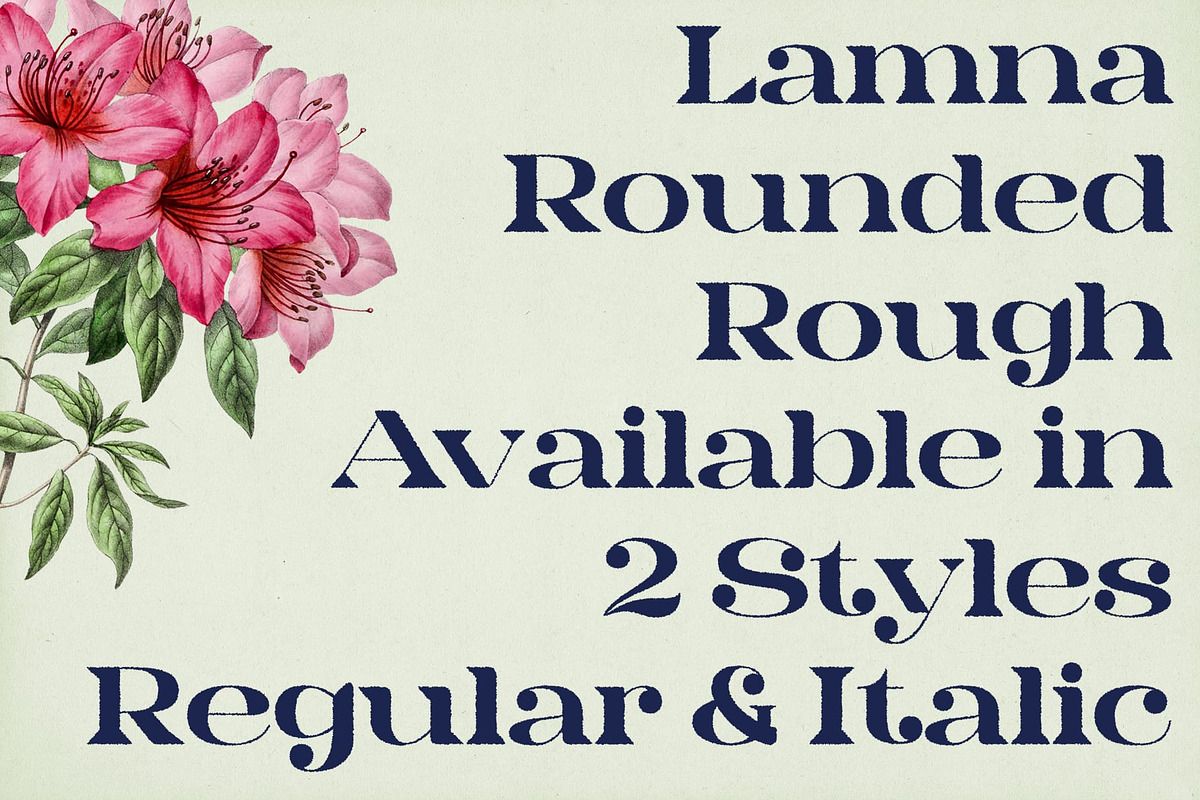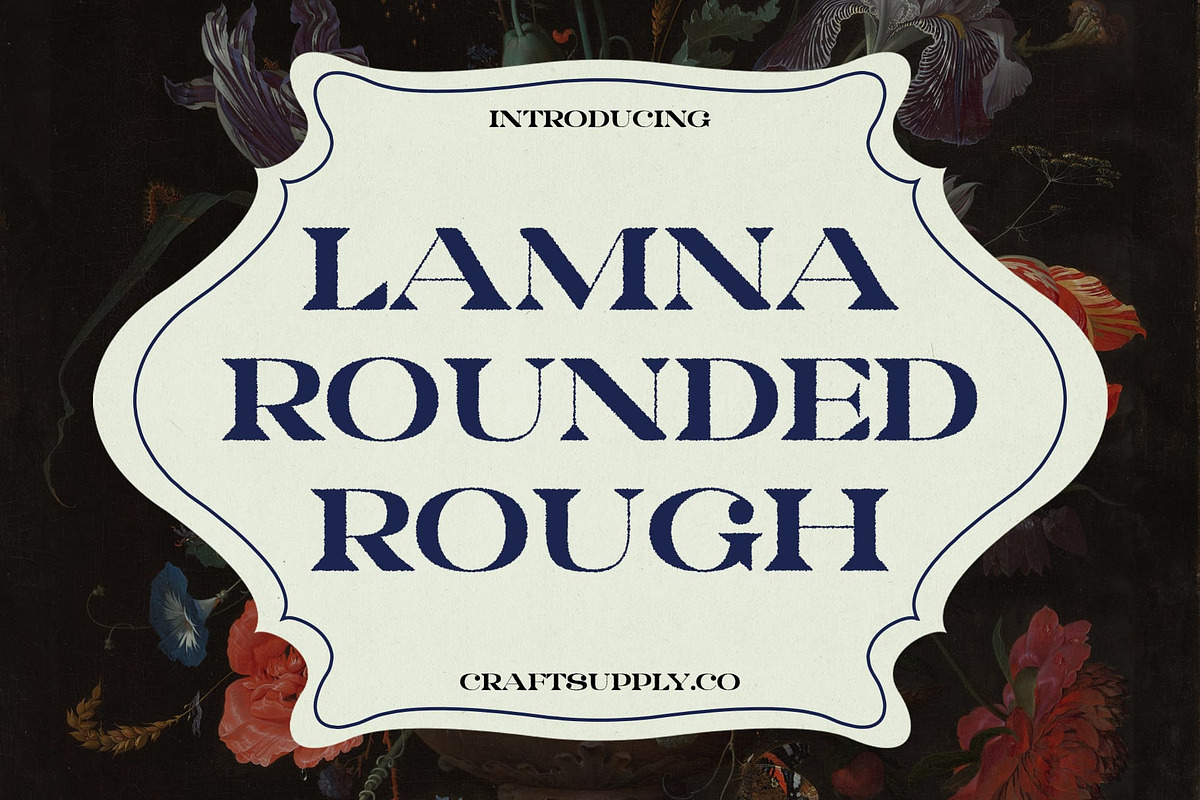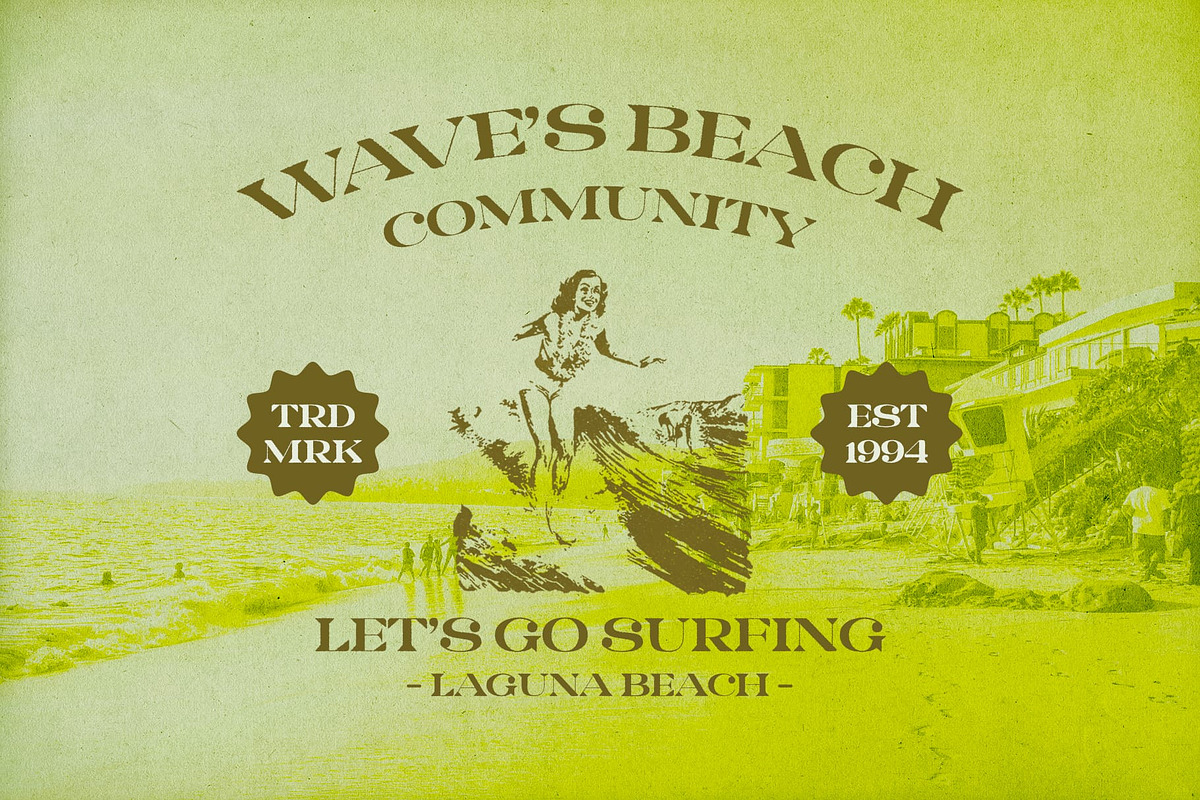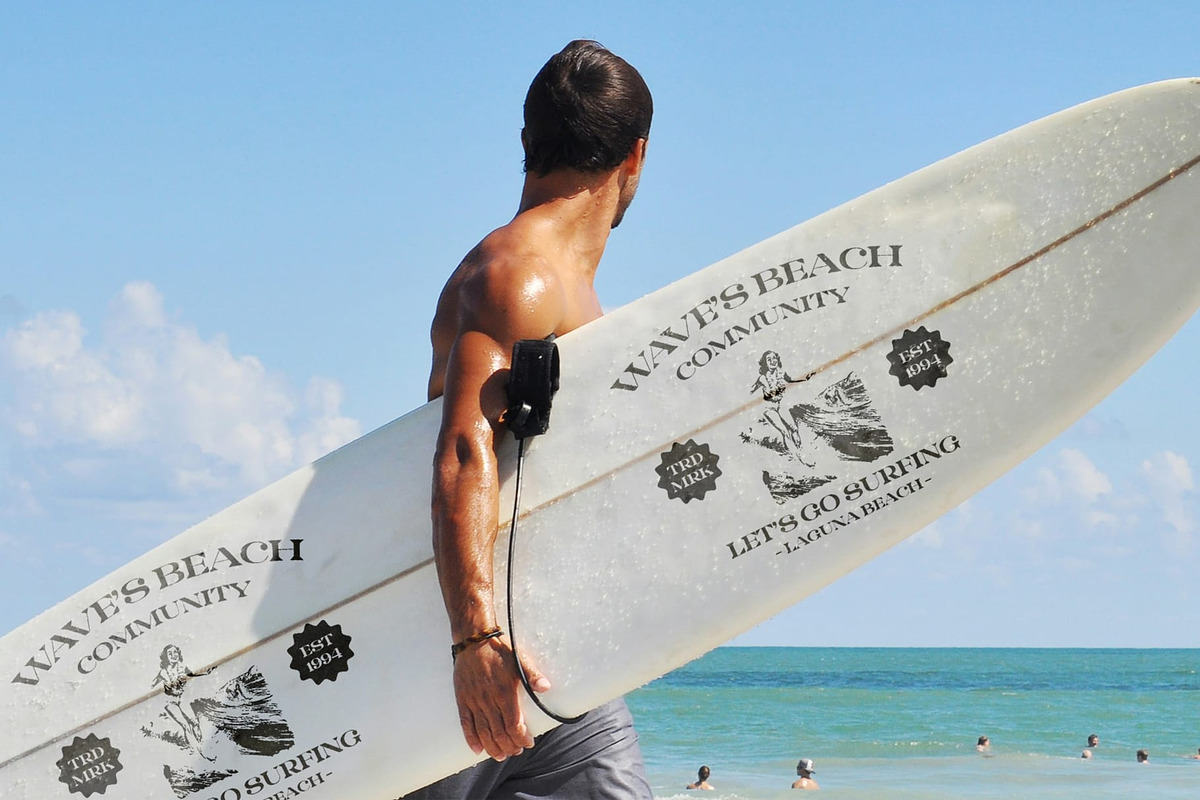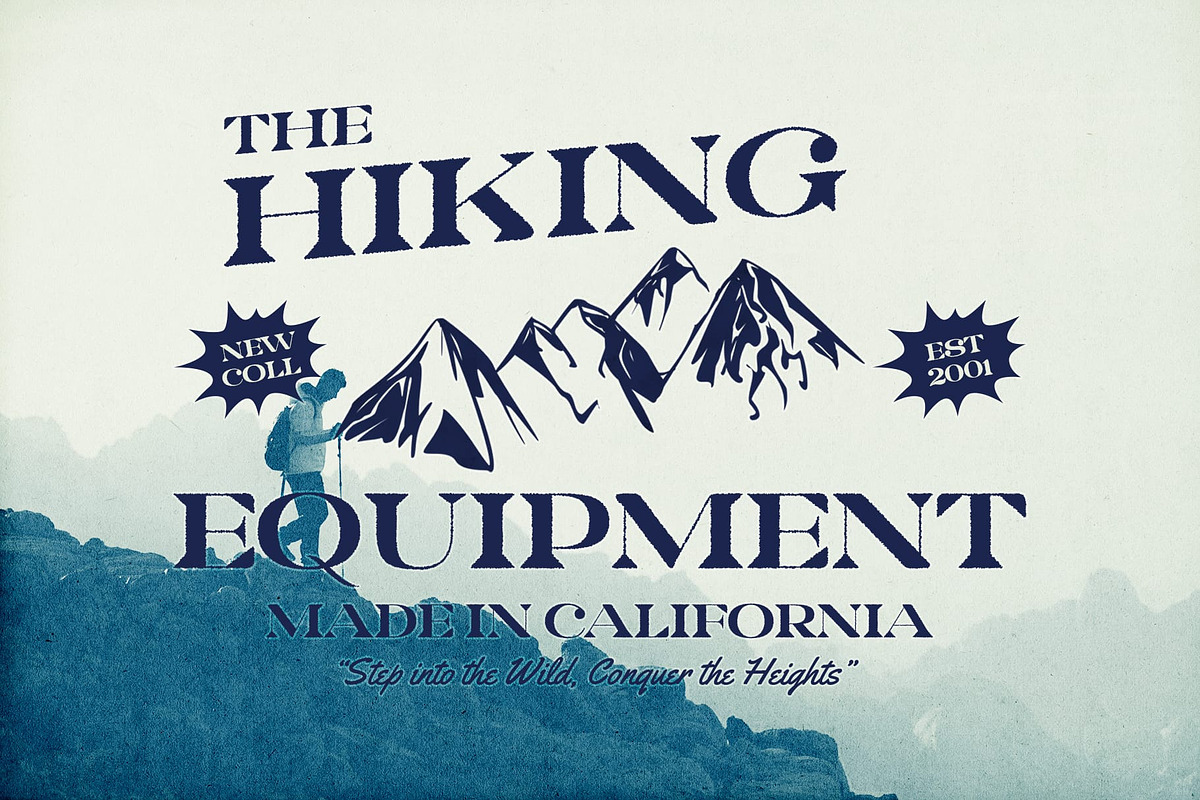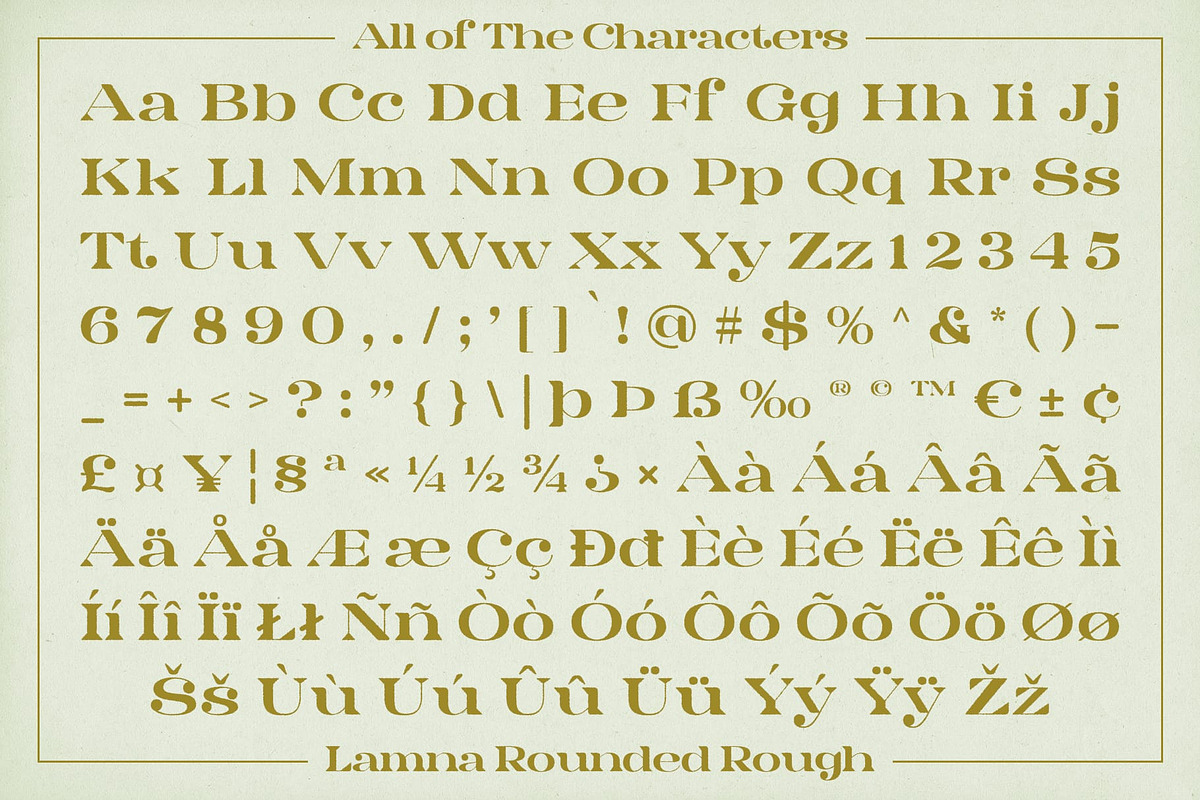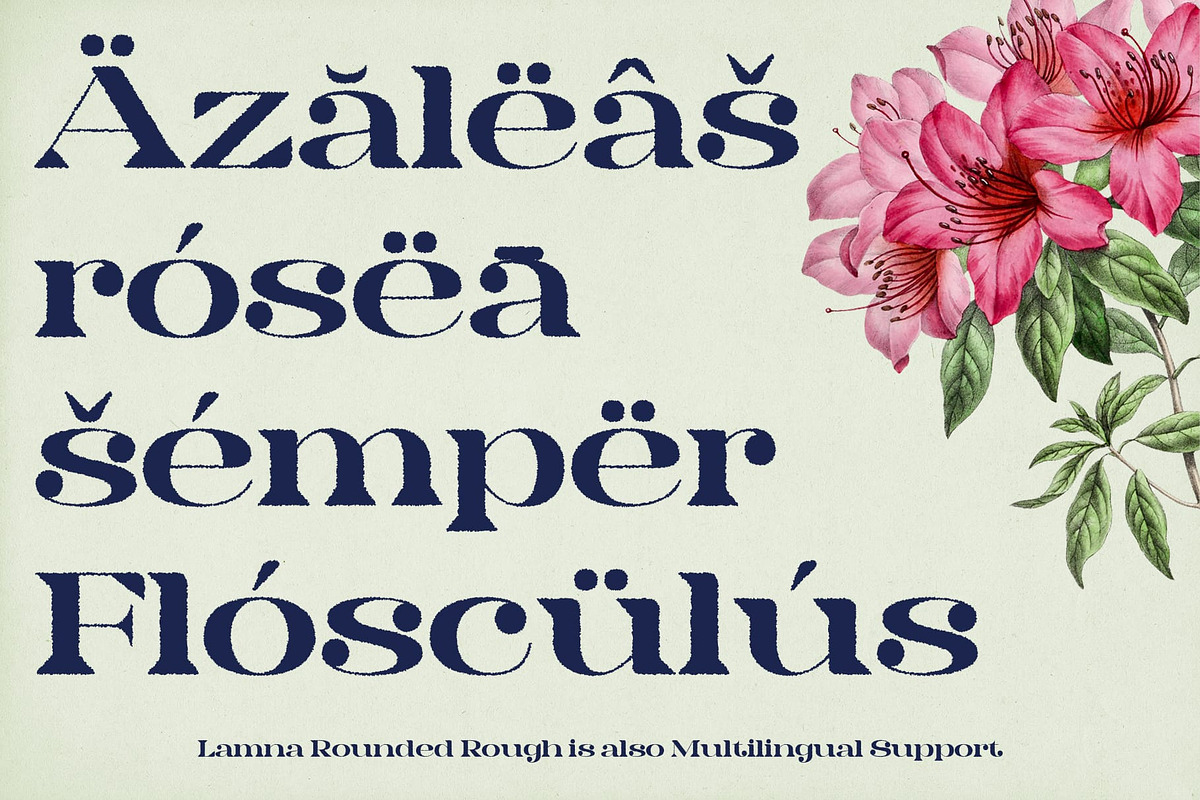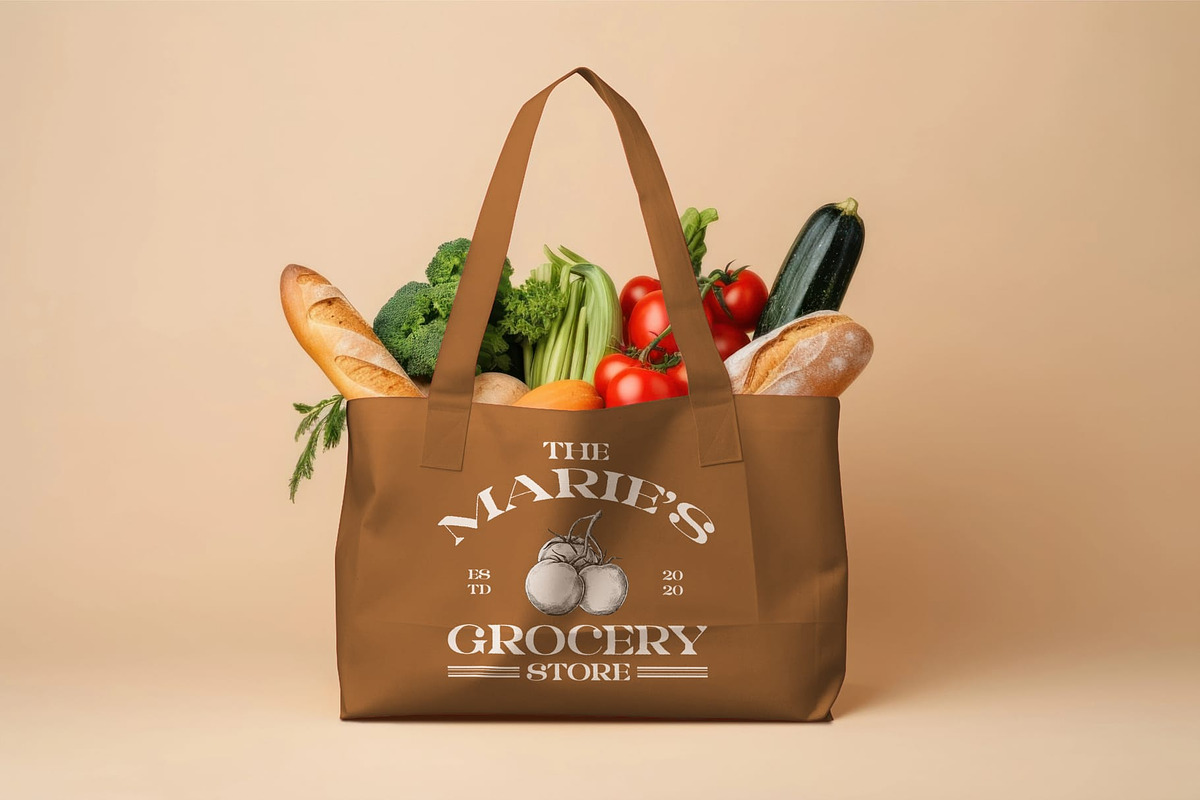
Lamna Rounded Rough
Lamna Rounded Rough Font: An Elegant Wedge-Shaped Serif Font with Retro Charm
Retro Elegance with a Unique Design Lamna Rounded Rough is a wedge-shaped serif font that beautifully captures an elegant retro feel through its distinctive and thoughtful design. Moreover, the font’s combination of wedge-shaped serifs and rounded corners creates a nostalgic vibe that harks back to classic typography, yet it maintains a refined structure that ensures timeless sophistication. Additionally, the carefully crafted letterforms exude a sense of elegance, making this font a versatile choice for a variety of design needs.
Textured and Rugged Appearance What sets this rounded rough font apart is its textured, rugged appearance. Furthermore, the rough effect imbues the font with a sense of character and history, adding depth and dimension to each letterform. Thus, this weathered look enhances the retro vibe, giving the text a lived-in, authentic feel that stands out in any design.
Perfect for Vintage and Elegant Designs This font is ideal for designers seeking a font that embodies both luxury and uniqueness. Indeed, its vintage-inspired design is perfect for branding, posters, and promotional materials that require a balance of elegance and originality. In fact, the font’s versatile nature allows it to shine in various contexts, from high-end branding projects to creative editorial layouts, providing a sophisticated yet distinctive touch.